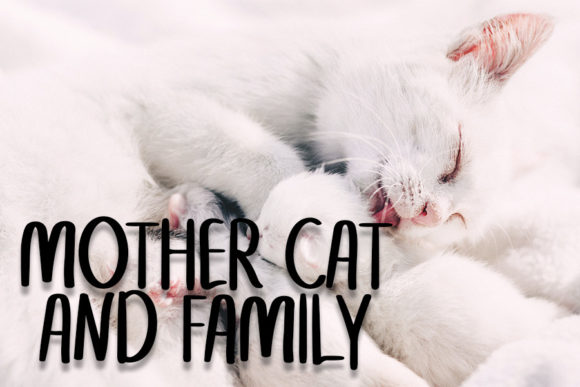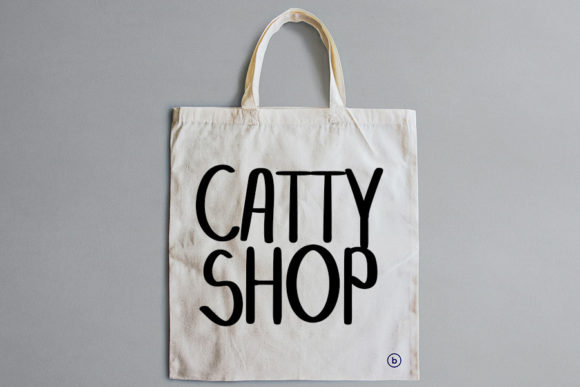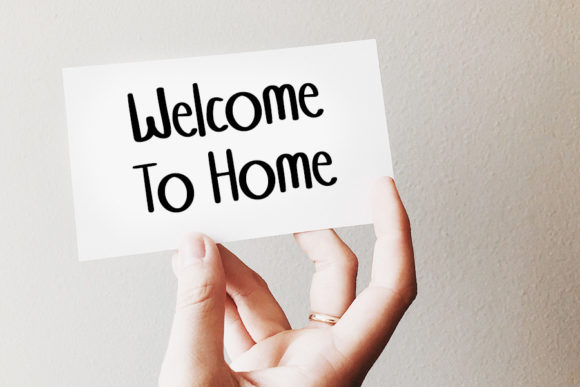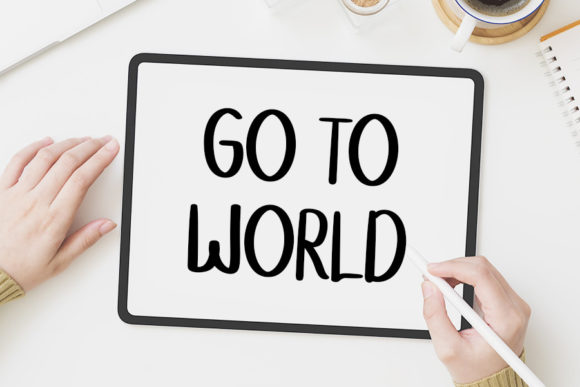
Hello Cat Font: The Purrfect Addition to Your Design Collection
Hello Cat is a cute handwritten font that has taken the design world by storm. This playful font is perfect for designers and crafters looking to add a touch of whimsy and personality to their projects. With its charming and endearing aesthetic, Hello Cat is sure to delight audiences of all ages.
The Characteristics of Hello Cat Font
Hello Cat is a handwritten font that boasts a unique and distinctive style. Its letters are carefully crafted to resemble the imperfect, yet lovable, handwriting of a child. The font features:
- Playful curves and irregularities: Each letter has a distinctive, hand-crafted feel that adds to the font’s charm.
- Soft and rounded edges: The font’s smooth edges give it a friendly and approachable appearance.
- Consistent yet quirky: Hello Cat’s design ensures that the font remains legible, even at smaller sizes.
Uses for Hello Cat Font
The versatility of Hello Cat font makes it suitable for a wide range of design projects, including:
- Digital and print designs: Use Hello Cat to create eye-catching social media graphics, posters, flyers, and brochures.
- Crafting and DIY projects: Add a personal touch to your handmade crafts, such as cards, scrapbook pages, and journal entries.
- Branding and packaging: Incorporate Hello Cat into your brand’s visual identity to convey a friendly and approachable tone.
- Web design: Use Hello Cat as a display font or for short paragraphs of text to add visual interest to your website.
Tips for Using Hello Cat Font Effectively
To get the most out of Hello Cat font, follow these expert tips:
- Pair with complementary fonts: Combine Hello Cat with clean, sans-serif fonts to create visual contrast and hierarchy.
- Experiment with colors and textures: Add depth and interest to your designs by incorporating different colors, patterns, and textures.
- Keep it legible: Use Hello Cat at sizes where it remains clear and readable, especially for body text.
- Play with font sizes and styles: Mix and match different font sizes, weights, and styles to create visual interest and emphasis.
Getting Creative with Hello Cat Font
Now that you’ve discovered the charm of Hello Cat font, it’s time to get creative! Here are some design ideas to inspire you:
- Create a custom greeting card: Use Hello Cat to craft a heartfelt, handwritten message.
- Design a social media campaign: Develop a series of playful, engaging graphics featuring Hello Cat.
- Make a statement with packaging: Incorporate Hello Cat into your product packaging to stand out on store shelves.
- Develop a brand identity: Use Hello Cat as the foundation for a cohesive brand style that showcases your personality.
Hello Cat font is a delightful addition to any design collection. Its playful, handwritten aesthetic is sure to capture the hearts of designers, crafters, and audiences alike. With its versatility, charm, and endless creative possibilities, Hello Cat is the purrfect font for those looking to add a touch of whimsy to their projects. Get creative with Hello Cat and unleash your imagination!